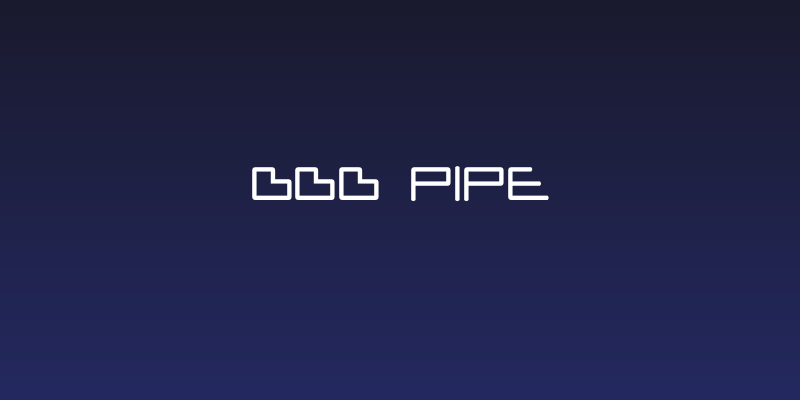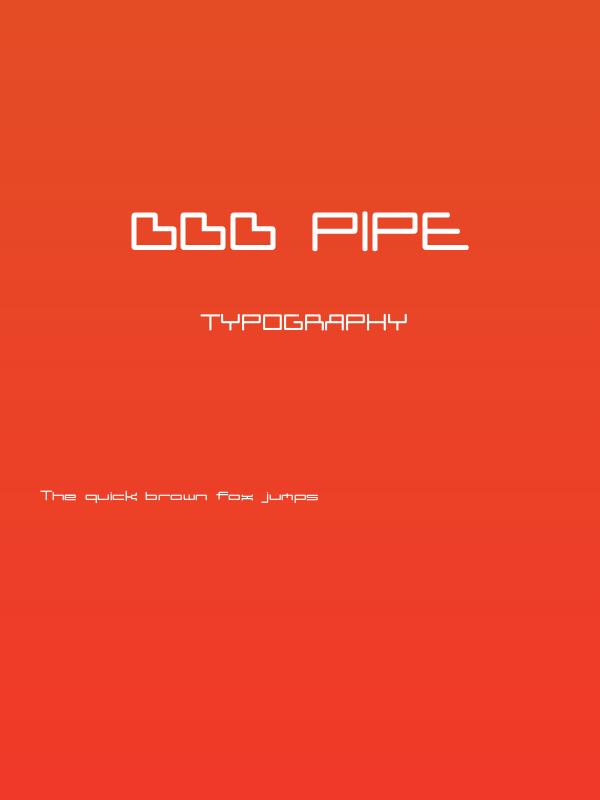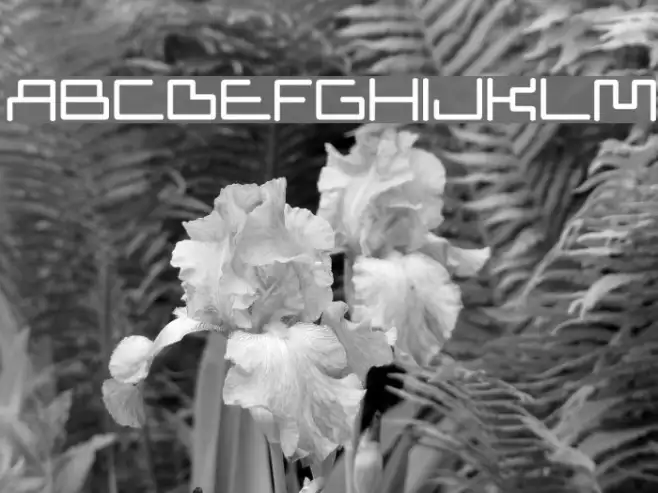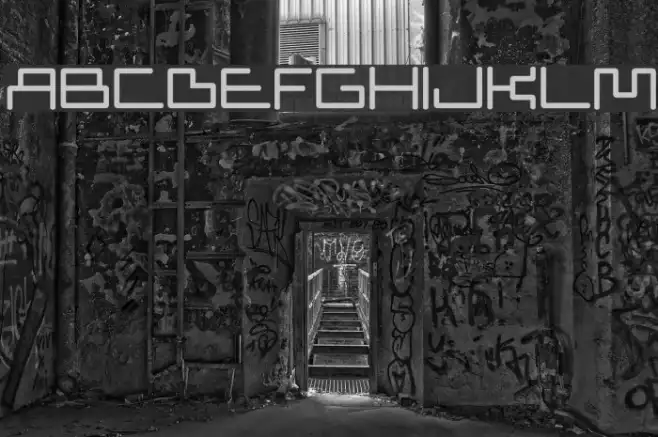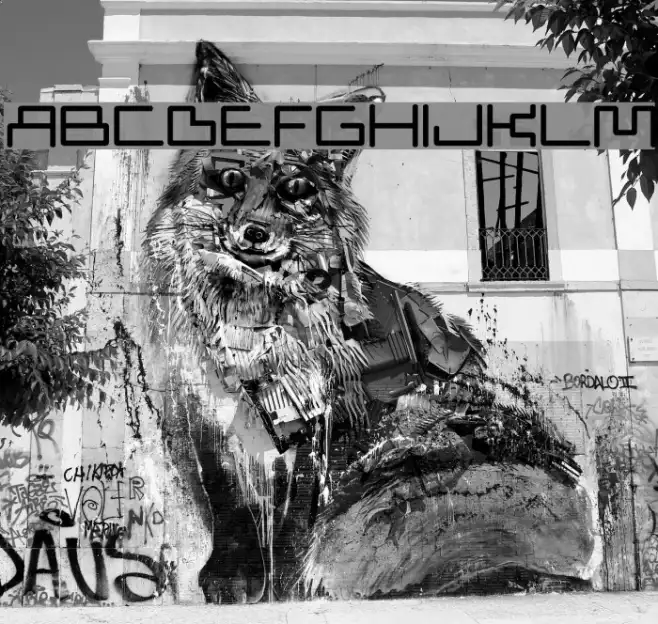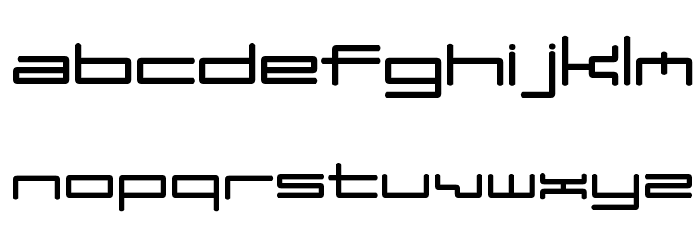
DDD Pipe Font
This font features a geometric, modular design with a futuristic aesthetic. Each character is constructed with consistent line thickness and rounded corners, giving it a tubular appearance. The uppercase and lowercase letters maintain a uniform height, contributing to a cohesive look. The numerals and special characters follow the same design principles, ensuring visual harmony across all glyphs. The font's clean lines and modern style make it suitable for digital and tech-oriented projects. Its unique structure is eye-catching, making it ideal for headlines or branding that seeks to convey innovation and modernity.
| Proposed Projects | Ideal for tech branding, digital interfaces, futuristic posters, and modern advertising. |